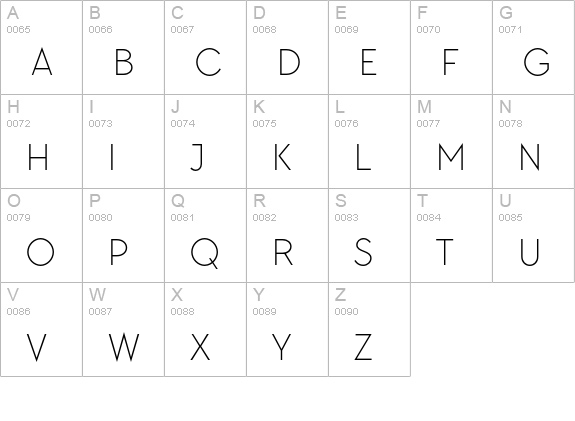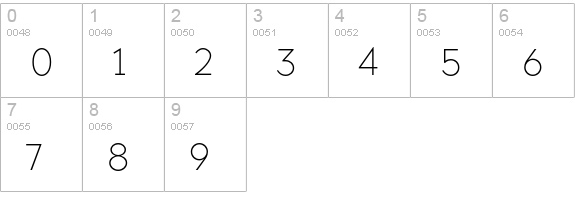
TT Chocolates Light Font Details
TT Chocolates Light is a refined, elegant variant in the TT typeface family \xE2\x80\x94 well suited to elegant body text, refined sub-headings, and luxury branding.
TT Chocolates Light font is a delightful and elegant typeface that exudes a sense of sophistication and charm. Its slender lines and graceful curves make it a perfect choice for various design projects, from branding and packaging to invitations and social media graphics. This font's airy and light appearance adds a touch of elegance and refinement to any text or headline. What makes TT Chocolates Light font even more appealing is the fact that it is available for free download at FontsMarket.com. This means that you can easily access and use this stunning font in your projects without any cost, making it a valuable addition to your design toolkit. Whether you are a professional designer or a hobbyist looking to add a touch of class to your creations, TT Chocolates Light font is a versatile and stylish choice that won't break the bank. Download it today and elevate your designs with this beautiful and free typeface.